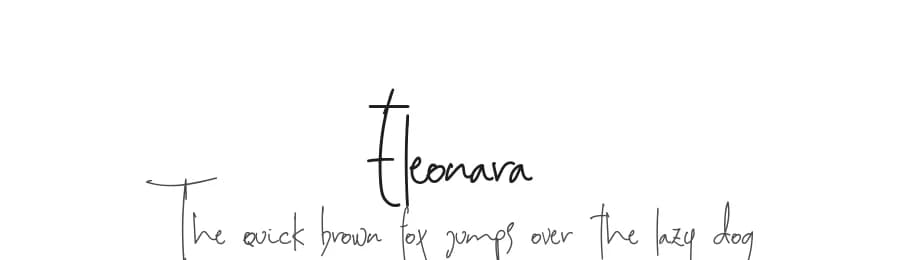
About Eleonara Font
Introducing Eleonara - Handwriting Font
Eleonara is a beautiful handwriting font, can make your design project look elegant, classy and modern, this font perfect for branding, invitation, stationery, wedding designs, social media posts,
product packaging, product designs, label, photography, special events or anything.
Eleonara comes with full set of uppercase and lowercase letters, symbols and numerals
Eleonara Specifications
| Designer | Christoph Nino |
Eleonara Font